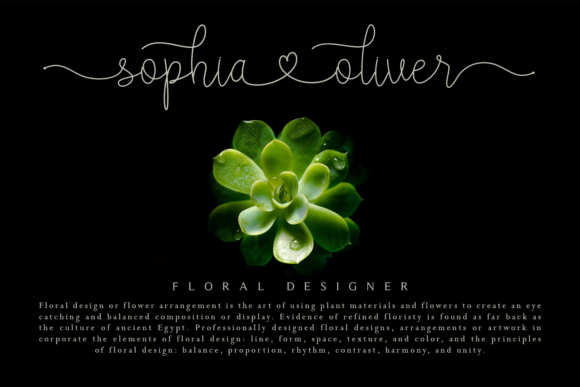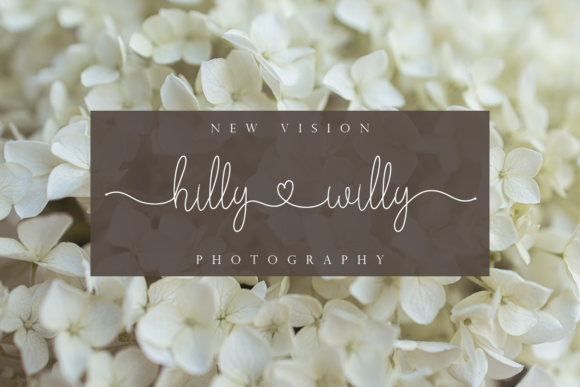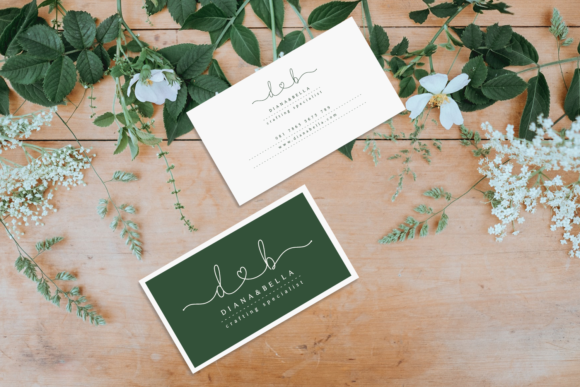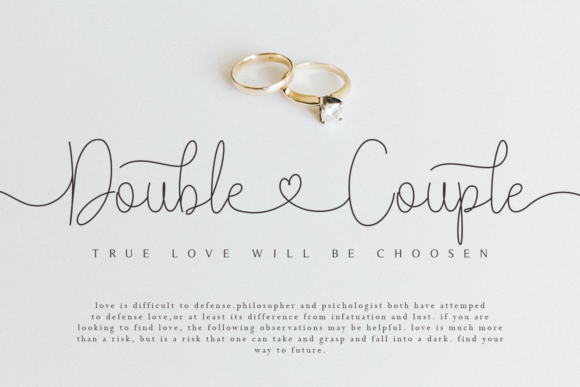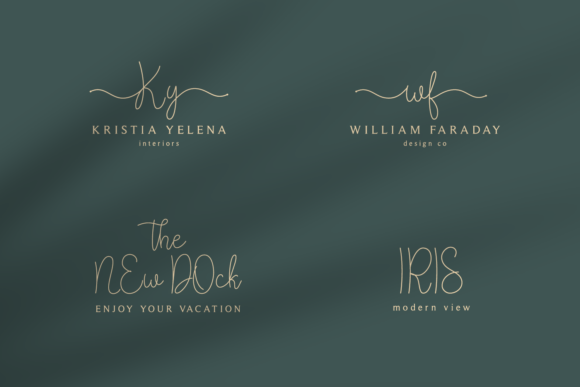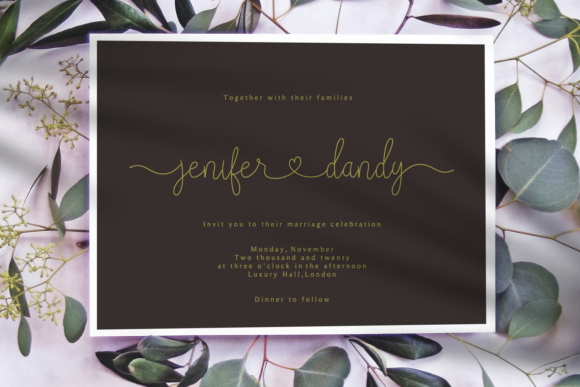
About Lovely Golden Font
Lovely Golden is a stunning and elegant handwritten font that radiates a sense of simplicity and sophistication. With its clean and minimalistic design, this font adds a touch of understated beauty to any design, making it a perfect choice for a wide range of creative projects.
The graceful and fluid strokes of Lovely Golden create a harmonious and balanced look that is pleasing to the eye. Its simplicity allows it to be versatile and adaptable, making it suitable for various contexts and design applications.
Whether you’re creating wedding invitations, greeting cards, logos, branding materials, or any other craft designs, Lovely Golden can effortlessly complement and elevate your creations. Its effortless charm and elegance make it an ideal choice for projects that require a touch of grace and refinement.
With the PUA encoding, Lovely Golden provides easy access to a wealth of glyphs and swashes, allowing you to customize and embellish your designs with beautiful decorative elements. This feature grants you the freedom to experiment with different styles and add a personal touch to your work.
Whether used as headlines, subheadings, or body text, Lovely Golden delivers a timeless and chic appearance that captivates the viewer. Its versatility allows it to shine in both digital and printed materials, enhancing the overall visual appeal of your projects.
In summary, Lovely Golden is a captivating and elegant handwritten font that brings a touch of simplicity and minimalism to your designs. With its PUA encoding, it offers a wide range of possibilities for customization, enabling you to create beautiful and visually appealing craft designs. Embrace the charm of Lovely Golden and let it infuse your projects with a sense of grace and understated beauty.